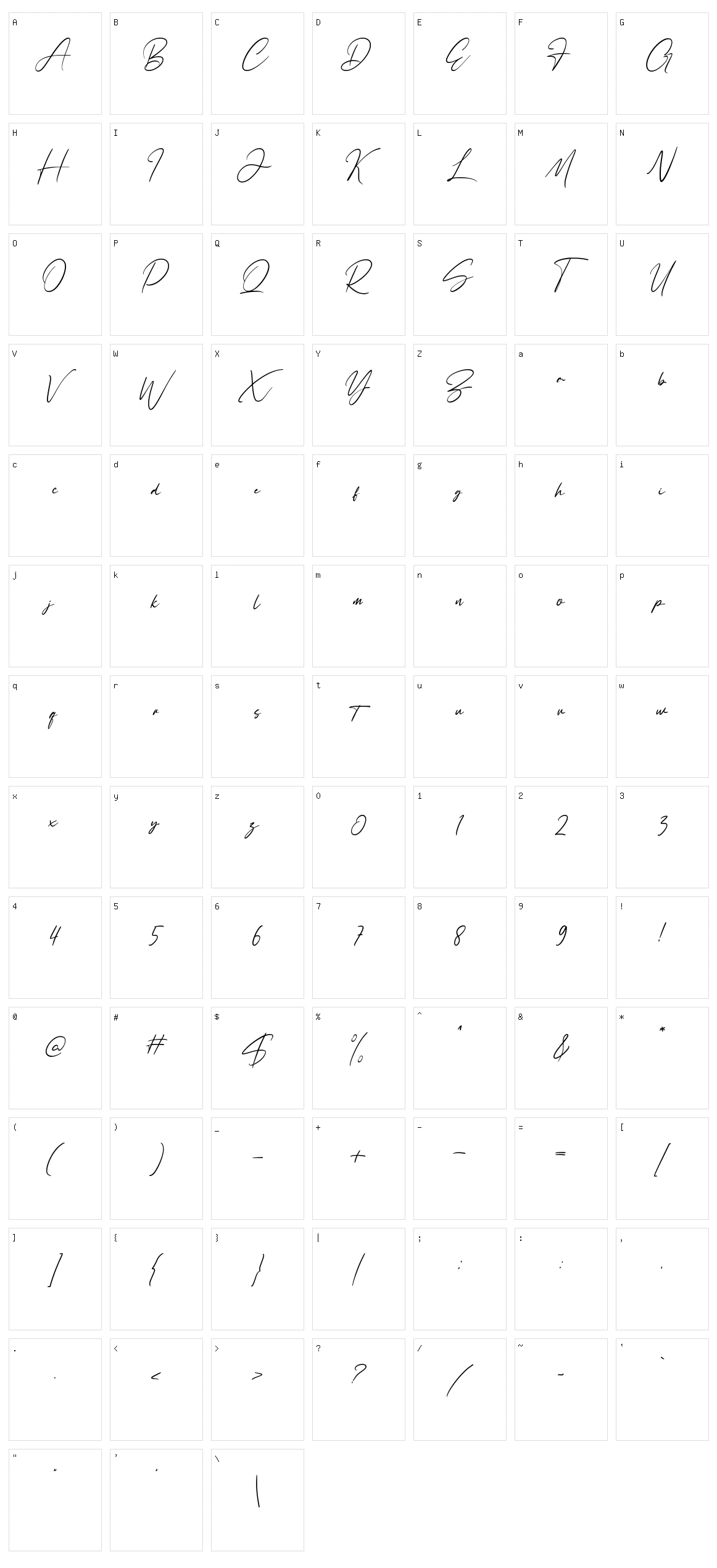
The free font Sailendra is carefully designed by Green Adventure Studio, showcasing a thoughtful balance of creativity and usability and falls under the Script font style. When you download the ZIP file, it contains only 52.8 KB of font files, making it lightweight and quick to download. Please review the license details below to understand permitted usage and distribution rights. If license information is not available, we recommend using this font for personal projects only or contacting the author directly for commercial usage permissions.